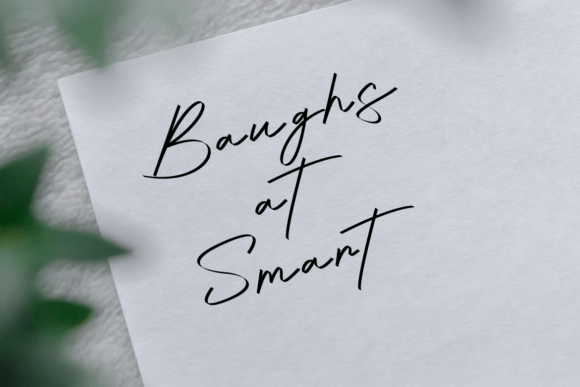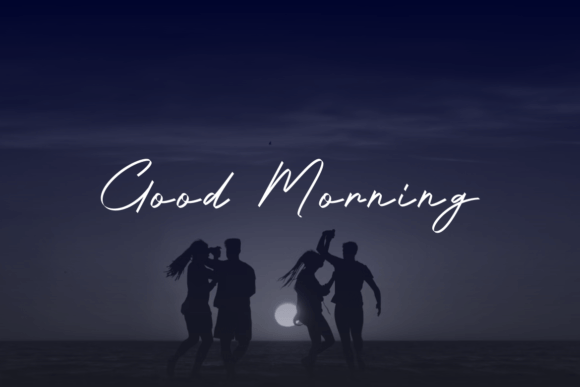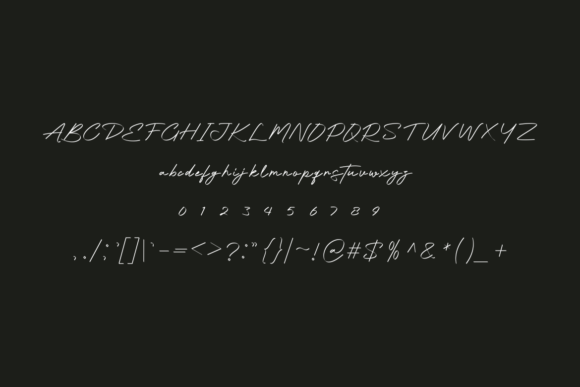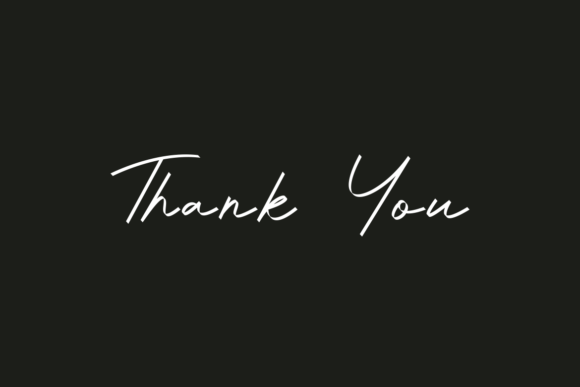
Introduction to Baughs at Smart Font
Remember the moment when you stumbled upon that perfect font that brought your design to life? For many creatives, it’s the culmination of hours spent searching for the perfect design resource. That ‘aha’ moment is exactly what Baughs at Smart Font is designed to deliver.
This charming handwritten font is the perfect addition to any creative project, offering a casual and playful style that’s both natural and friendly. With its smooth and easy-to-read letters, Baughs at Smart Font is ideal for personal projects, invitations, or any design that needs a relaxed and creative touch. Whether you’re working on a high-quality design or a simple yet effective layout, this font is sure to elevate your work and leave a lasting impression.
Key Features of Baughs at Smart Font
Honest Review: Baughs at Smart Font
I recently came across Baughs at Smart Font and I’m excited to share my thoughts on this design resource. As a designer, I’m always on the lookout for high-quality assets to enhance my creative projects.
- Smooth and clean design, perfect for modern and minimalist projects.
Overall, Baughs at Smart Font is a solid addition to any designer’s toolkit. While it may not offer the most extensive range of customization options, its high-quality design and transparent background make it a great choice for modern and minimalist projects. Whether you’re working on a logo, icon, or other creative project, this font is definitely worth considering.
Baughs at Smart Font
For the most effective use of Baughs at Smart Font, use it for titles and headings to create a visually appealing contrast with your background. It’s also perfect for creating a modern and sleek design in your creative project.